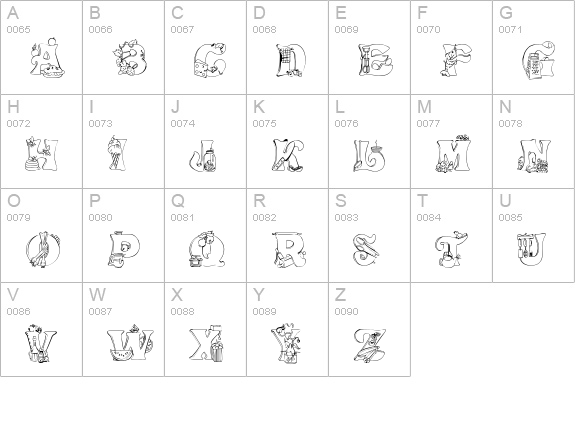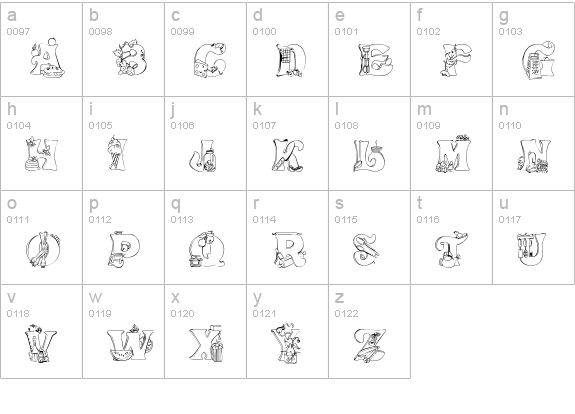
Kitchen Kapers I Font Details
Introducing the stunning and versatile Kitchen Kapers I font - a true gem for all your creative endeavors! This magnificent font is a perfect blend of elegance and playfulness, making it ideal for a wide range of design projects. With its exquisite curves and intricate details, Kitchen Kapers I is sure to captivate your audience and add a touch of sophistication to any design. But here's the best part - Kitchen Kapers I is absolutely free! That's right, this incredible font can be freely downloaded at FontsMarket.com, giving you unlimited access to its artistic beauty without costing you a single penny. Whether you're a professional designer or a passionate hobbyist, this free font is a dream come true. Unleash your creativity and let Kitchen Kapers I take your designs to new heights. Its versatility knows no bounds, making it suitable for a variety of applications such as logos, branding, packaging, invitations, posters, and so much more. The carefully crafted letterforms and unique character variations will effortlessly elevate your projects, leaving a lasting impression on your audience. Not only does Kitchen Kapers I offer remarkable aesthetics, but it also boasts exceptional legibility. Each letter is expertly designed to enhance readability, ensuring that your message is conveyed with clarity and style. Whether used in large headlines or small body text, this font guarantees a seamless reading experience for your viewers. So why wait? Don't miss out on the opportunity to enrich your design toolkit with this remarkable free font. Download Kitchen Kapers I from FontsMarket.com today and let your creativity flourish like never before. With its timeless appeal and uncompromising quality, this font is destined to become a staple in your collection. Embrace the beauty of Kitchen Kapers I and watch as your designs come to life with a touch of elegance and charm.